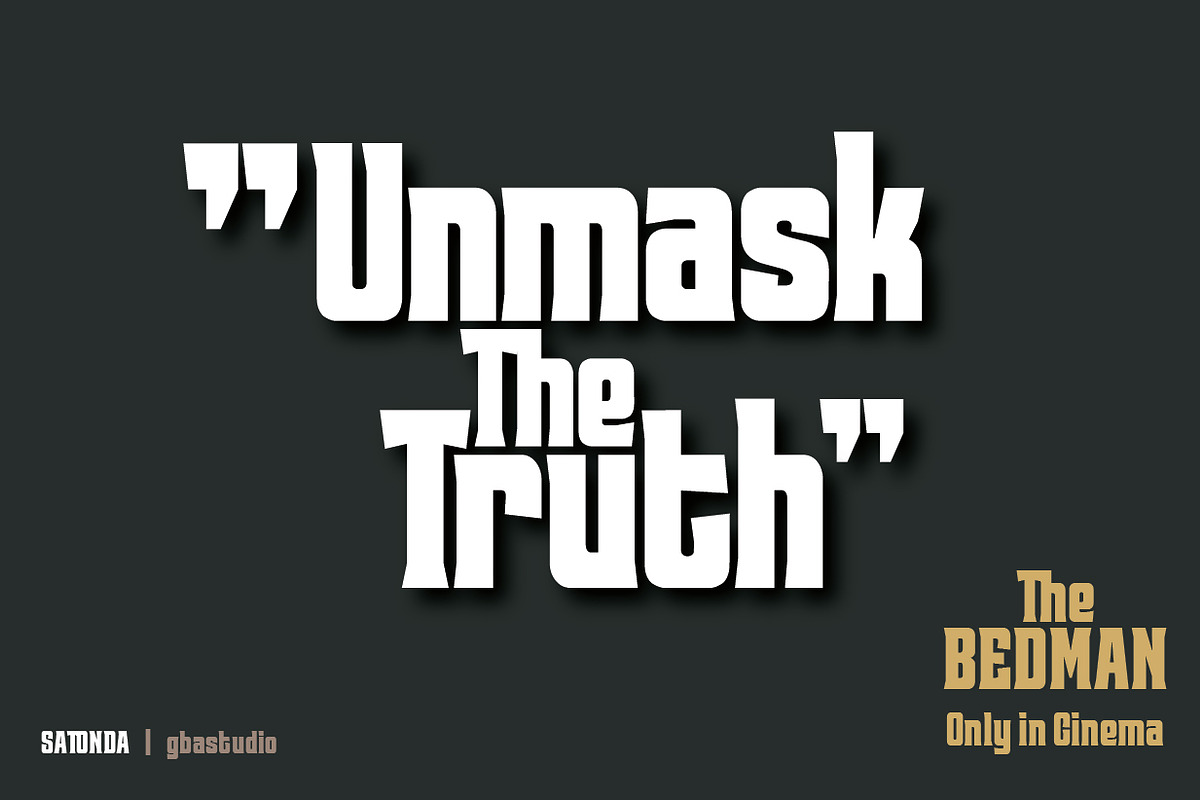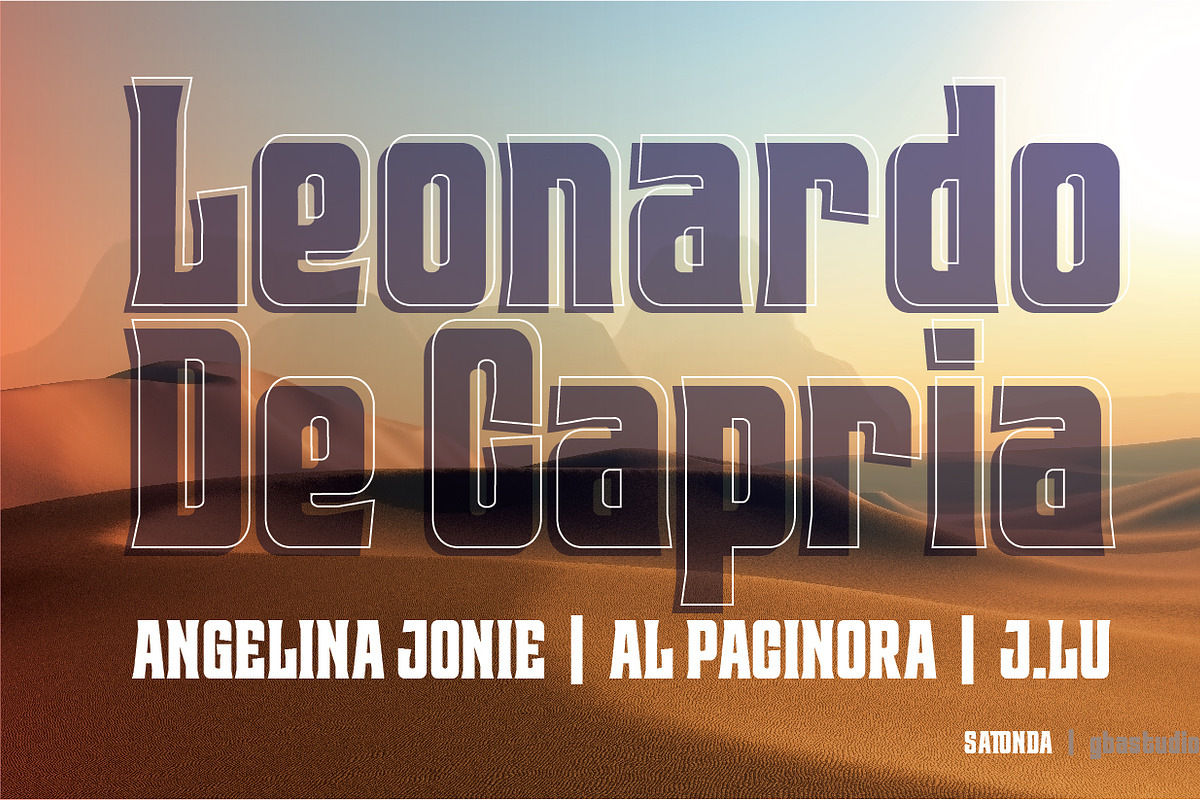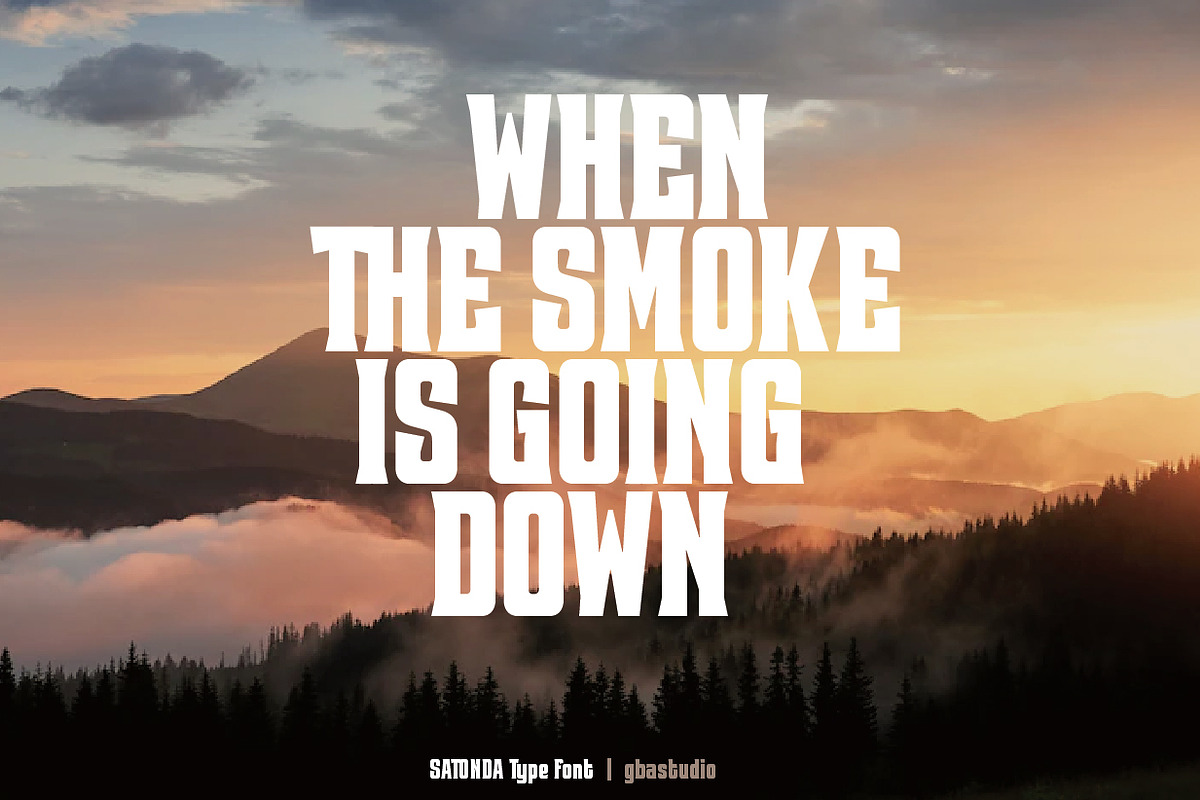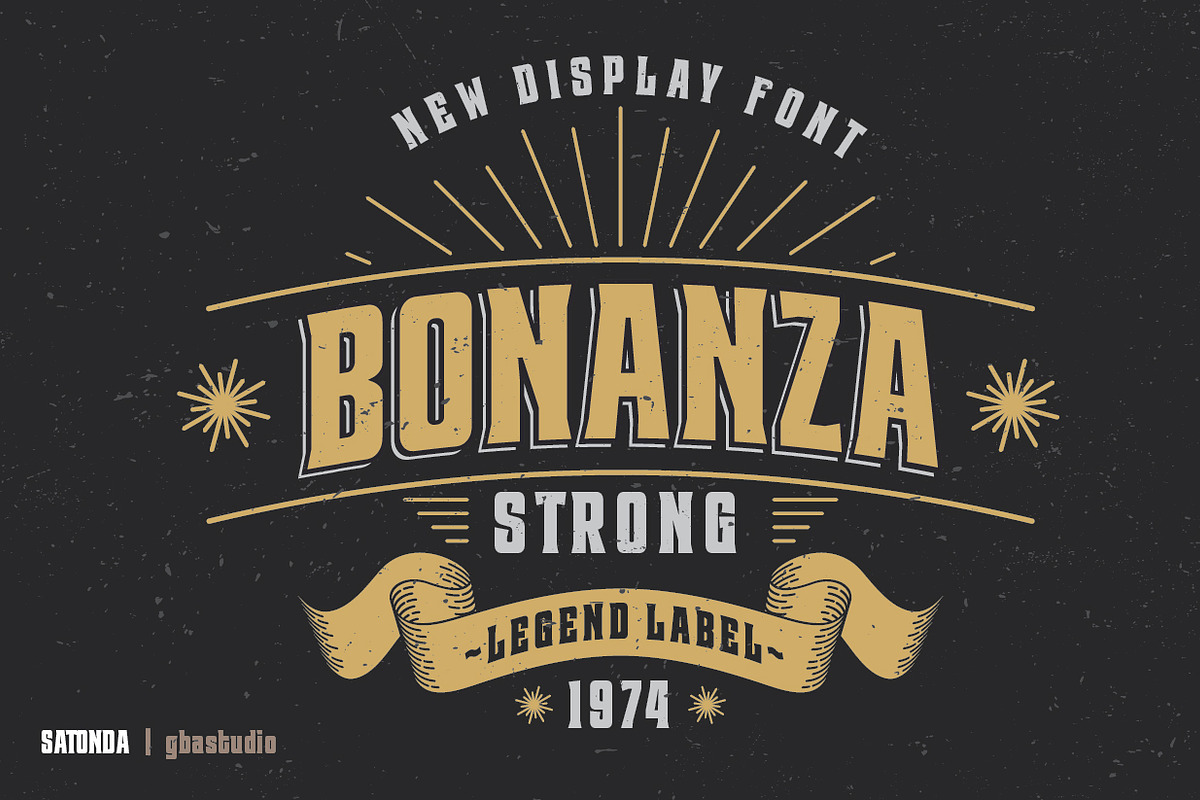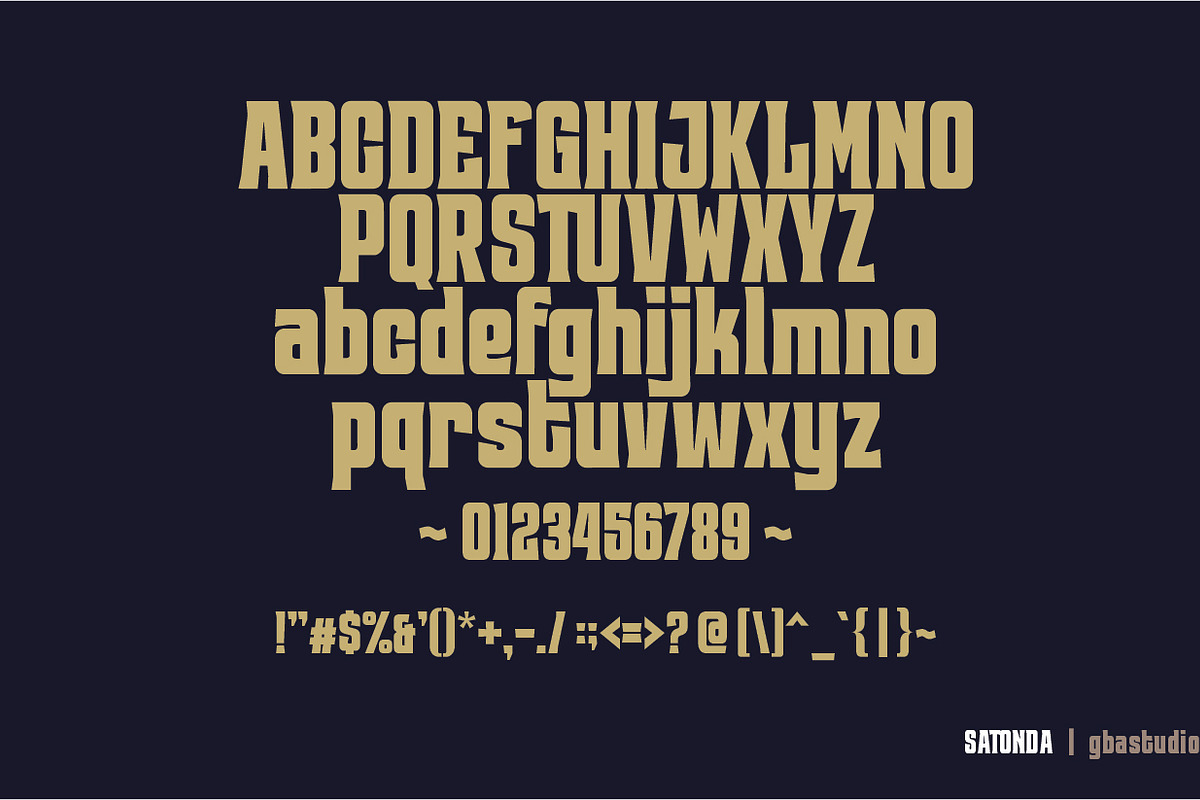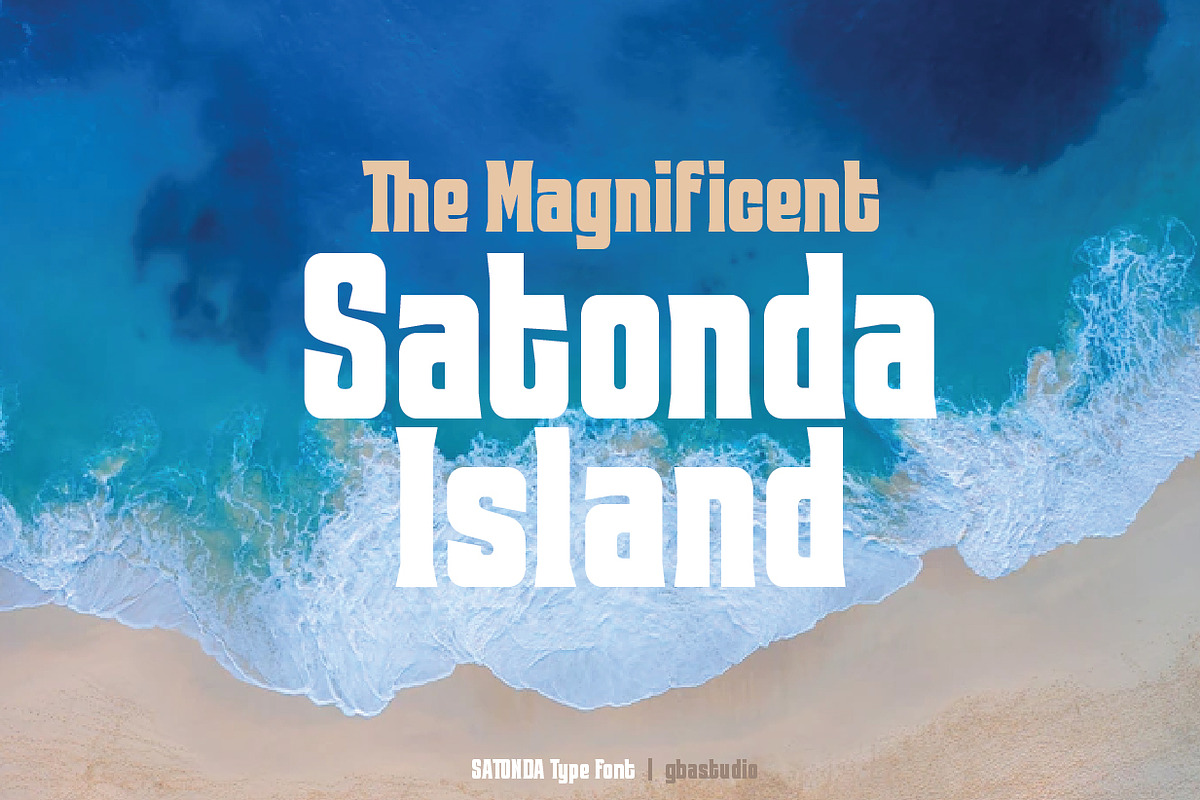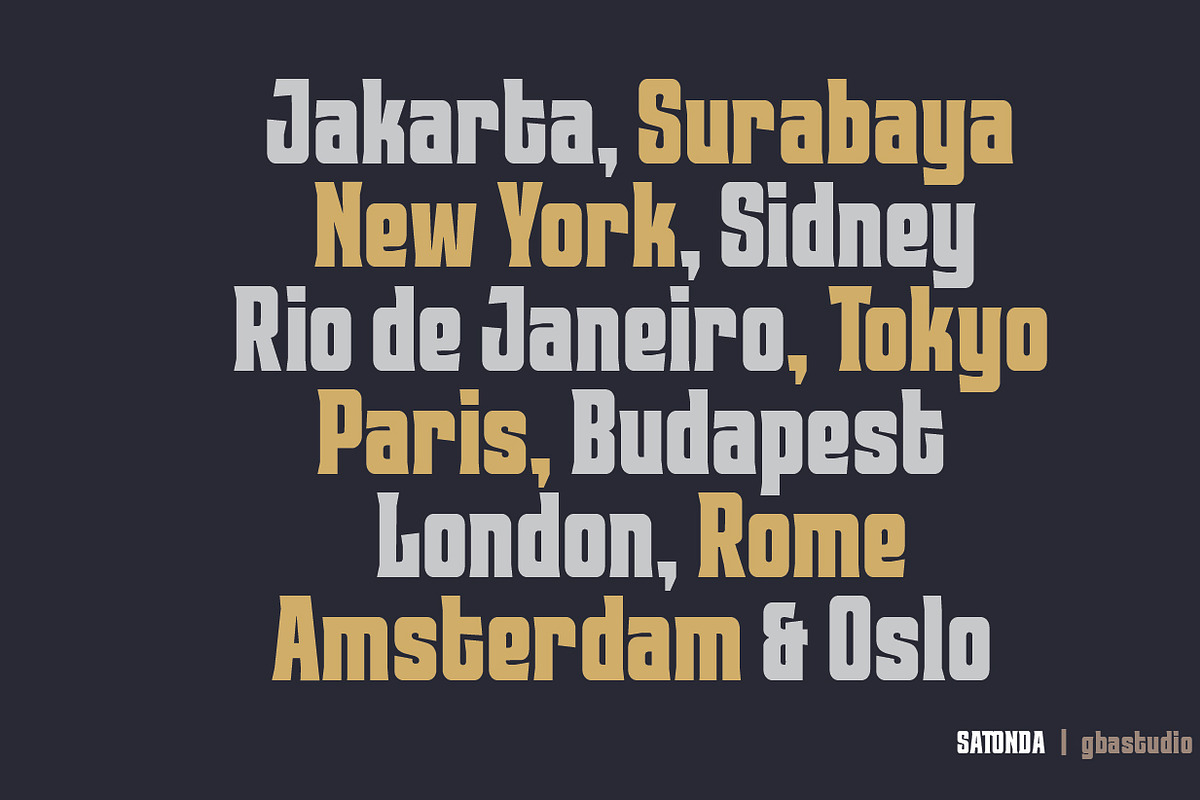
Satonda
Satonda font was created as a strong title font. This font is very suitable for use as movie titles or other program titles, posters, and credit titles for movies. This font is also great for your projects such as book titles/covers, magazines, banners, logos, games, emblems, websites, music posters, movies, and digital advertisements. This font is PUA encoded which means you can access all of the amazing glyphs and ligatures with ease!